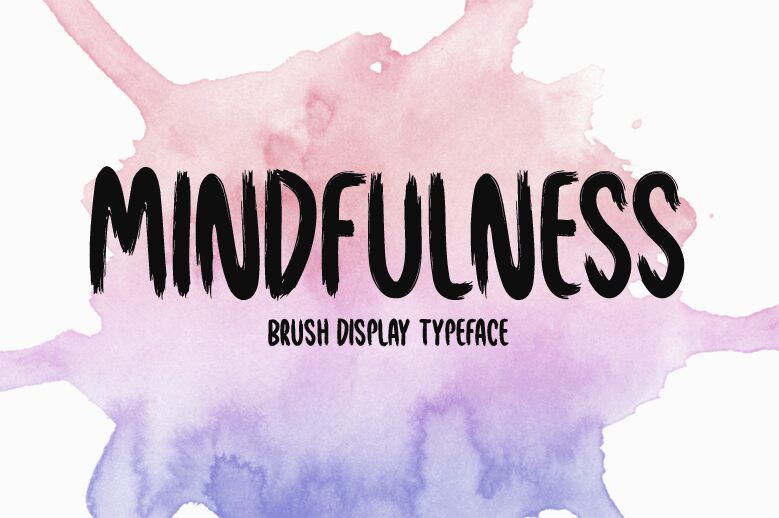
Mindfulness
Mindfulness, a captivating brush font designed by Md Shohail Bhuian, exudes an artistic and free-spirited vibe. Its condensed width adds a touch of elegance and sophistication to any design project.
Perfect for fashion editorials, Mindfulness brings dynamic energy to magazine covers and Instagram quotes. With its bold strokes and unique texture, this font is ideal for branding materials such as logos or packaging designs that aim to leave a lasting impression on the audience.
Add a dash of creativity to your next project with Mindfulness – the embodiment of artistic expression.